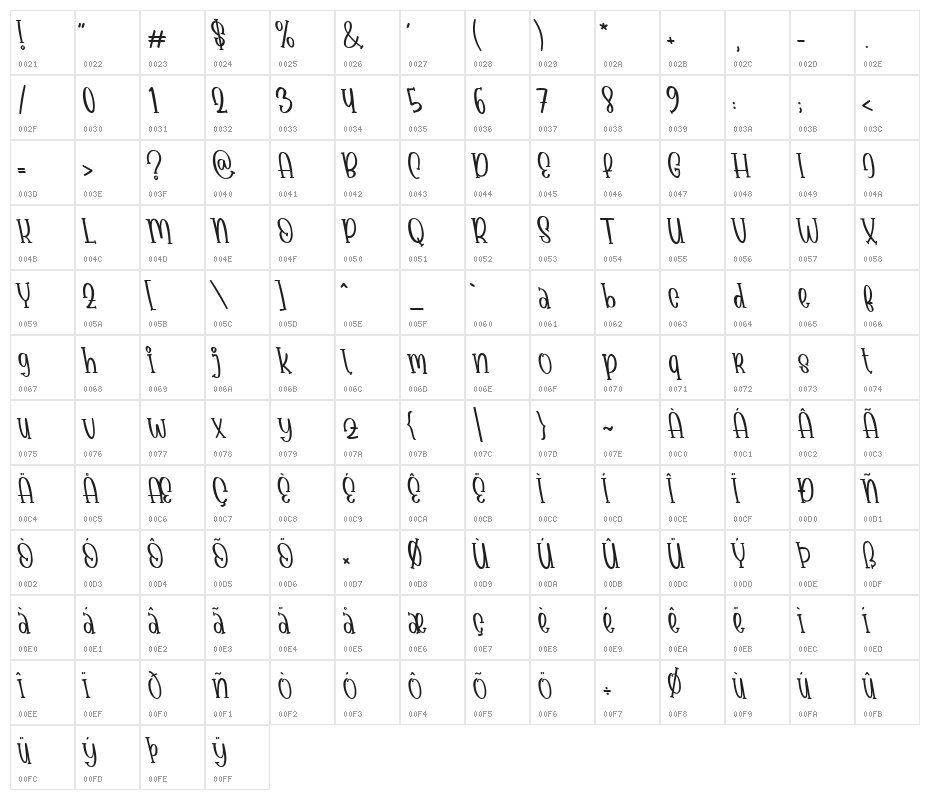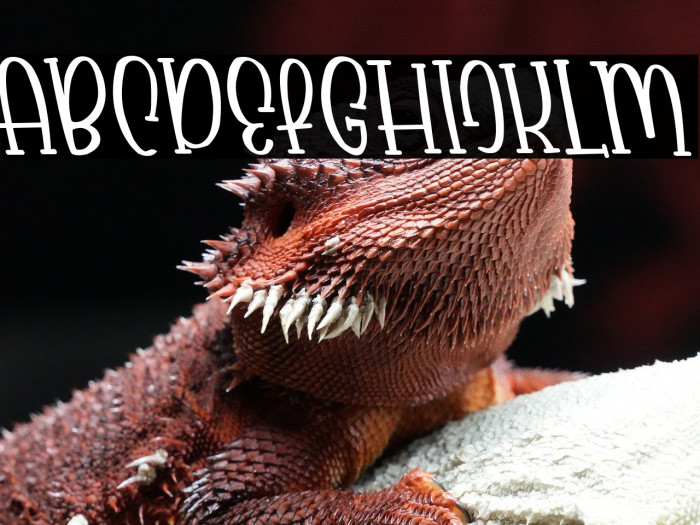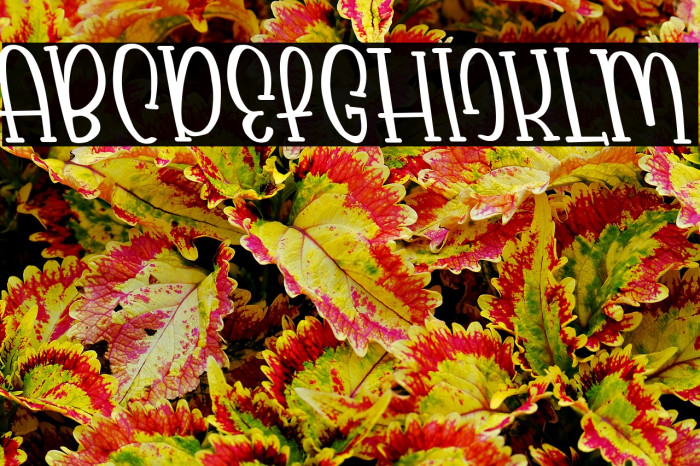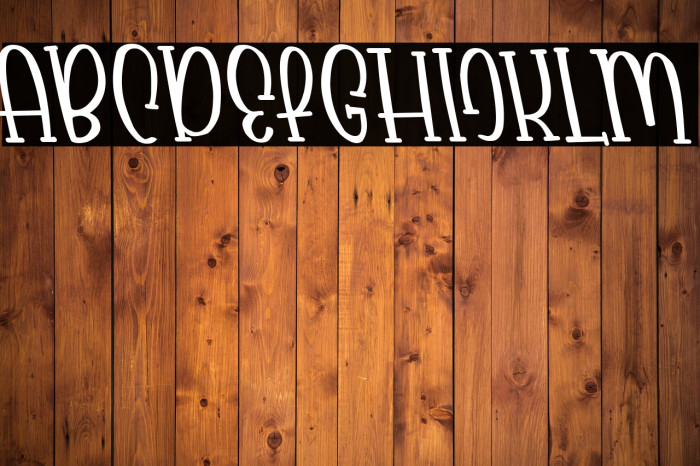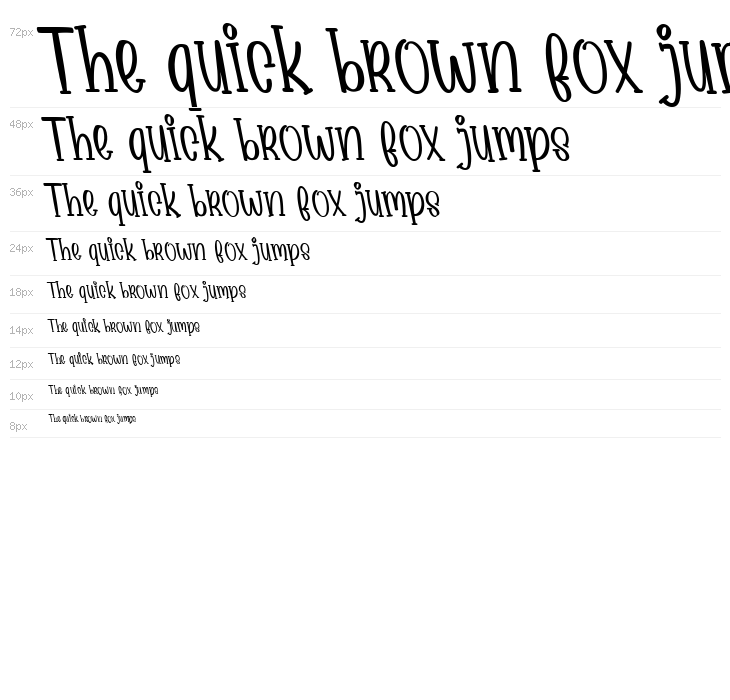
Babyface Tilted Font
Babyface Tilted Description
This playful and whimsical font features a unique tilted design, giving it a lively and dynamic appearance. The characters are bold and slightly condensed, with a hand-drawn feel that adds a touch of personality. The uppercase letters are tall and narrow, while the lowercase letters maintain a consistent style with a slight slant. Numbers and special characters follow the same playful aesthetic, making this font versatile for various creative projects. Its distinct style is perfect for capturing attention and conveying a sense of fun and creativity.